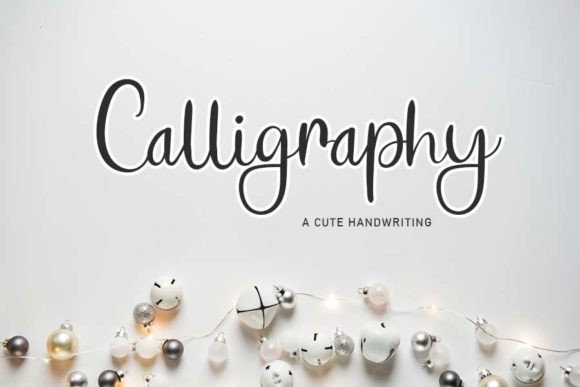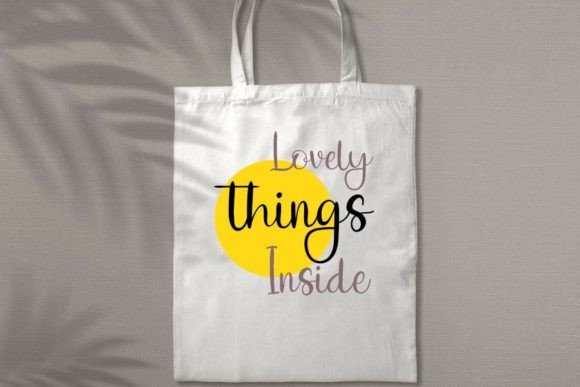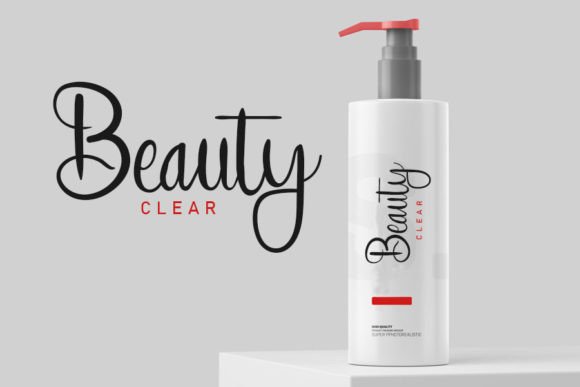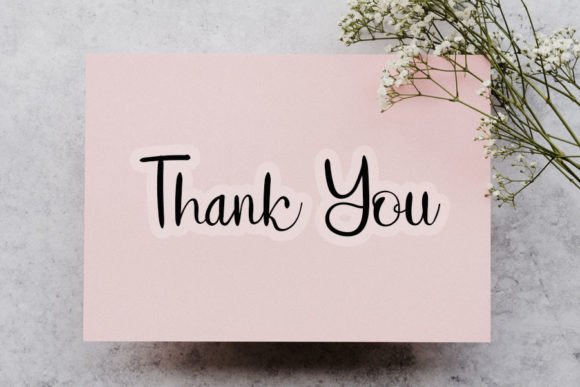
Calligraphy Font
A Stylish and Elegant Handwritten Font for Creative Projects
Calligraphy Font is a stylish and elegant handwritten font that exudes a sense of sophistication and timelessness. With its distinct and graceful letterforms, this font is perfect for a wide range of design projects where a touch of elegance is desired. Whether you’re working on invitations, greeting cards, logos, or any other creative endeavor, Calligraphy Font will elevate your designs and make them stand out.
In invitations and greeting cards, Calligraphy Font brings a touch of romance and elegance. The font’s graceful curves and delicate details create a sense of luxury and sophistication, setting the tone for a special occasion or heartfelt message. Whether it’s a wedding invitation, birthday card, or thank-you note, Calligraphy will help your designs shine and make them memorable.
Ideal for Logos and Branding
Logos designed with Calligraphy Font capture attention with their stylish and distinctive letterforms. Its timeless and sophisticated style adds professionalism and refinement to your brand identity. Whether you’re creating a logo for a high-end boutique, fashion brand, or luxury service, Calligraphy Font will help you design a logo that reflects your brand’s essence and leaves a lasting impression.
Versatile for a Wide Range of Projects
Calligraphy Font‘s versatility extends to a wide range of design projects. Its elegant and distinct style makes it perfect for editorial layouts, quotes, packaging, and more. Use it to add a touch of beauty and sophistication to your projects and create a visually captivating experience for your audience.
Add Elegance and Beauty to Your Designs
In summary, Calligraphy Font is a stylish and elegant handwritten font that brings beauty and sophistication to your favorite projects. Its distinct and timeless style will make your designs stand out and captivate your viewers. Fall in love with Calligraphy Font and let it help you create spectacular designs that leave a lasting impression.